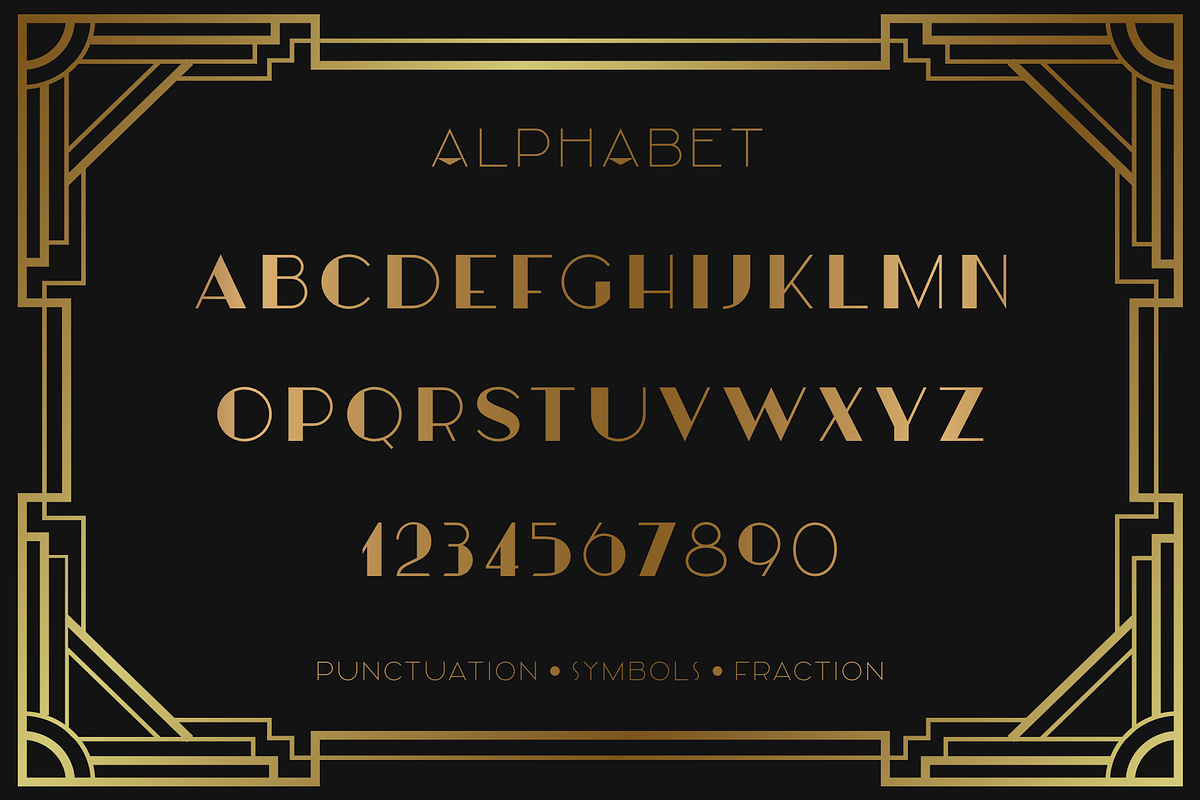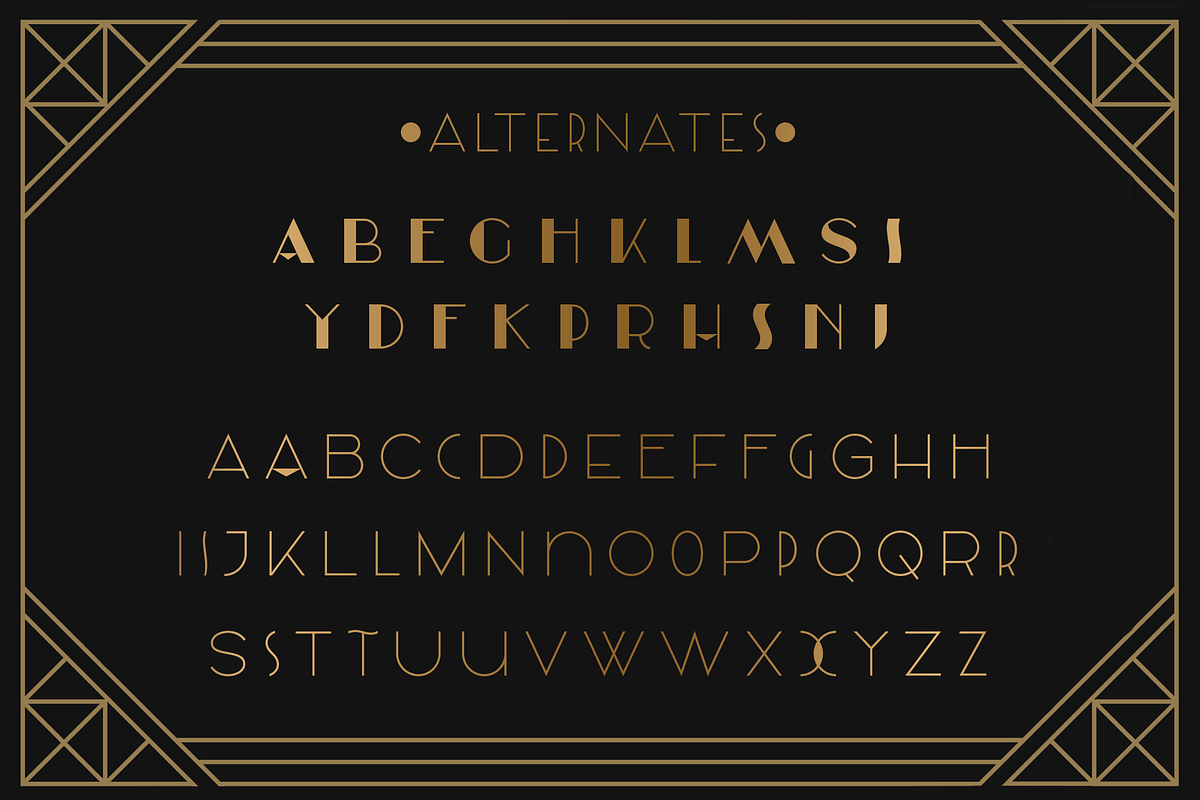
Sensal
Sensal this is a beautiful vintage font in the Art Deco style. elegant and attractive, it will attract attention and create a unique atmosphere. this font is made in two styles - Regular and Outline, this will allow you to combine and make your design more voluminous. Also in this font there are alternates, with their help you can change the dynamics of the font and make it lightweight. Try changing alternatives and you will see how many options you can get.
This font is easy to use and has OpenType features.